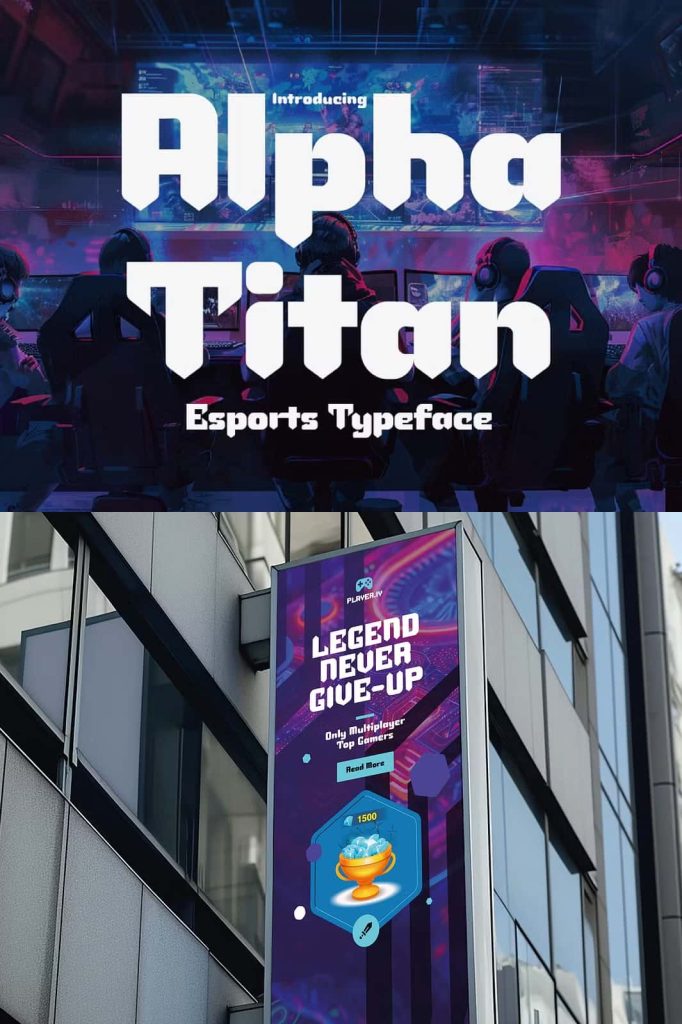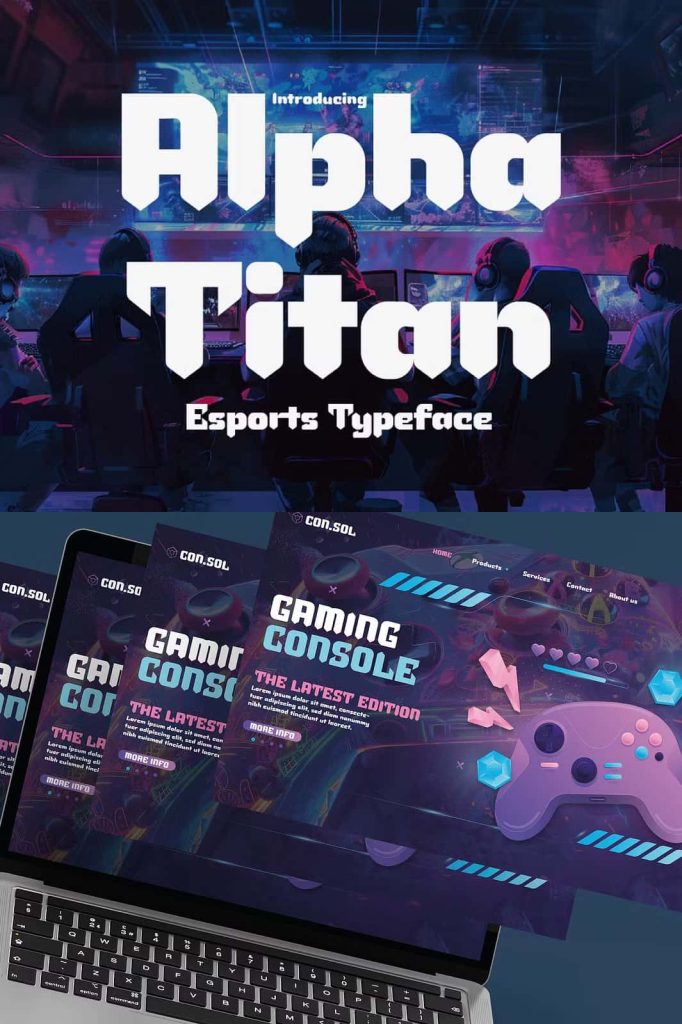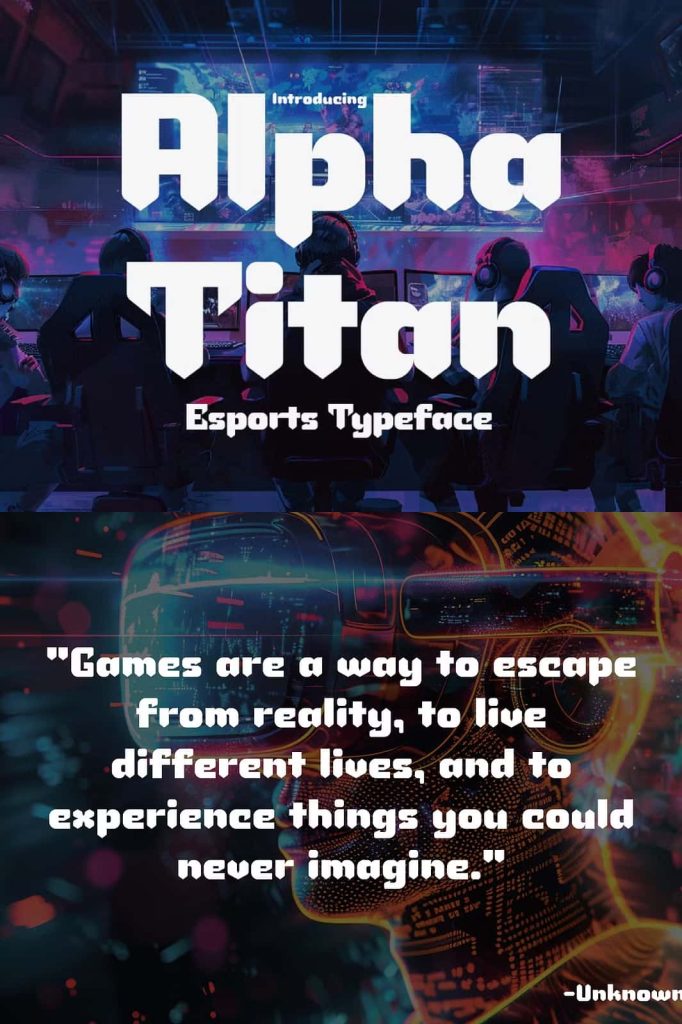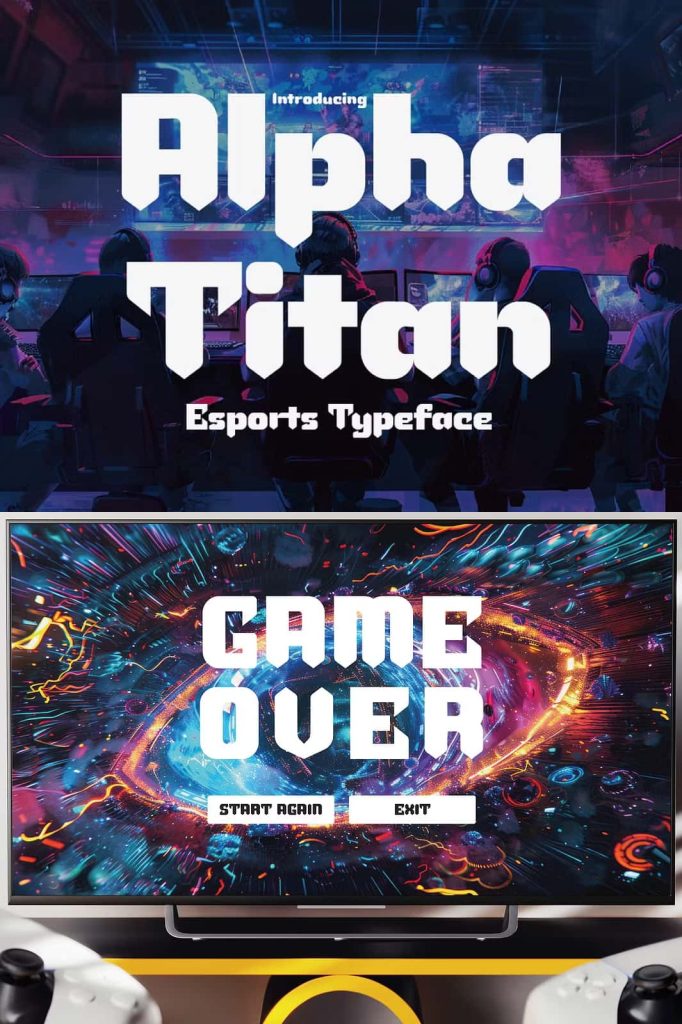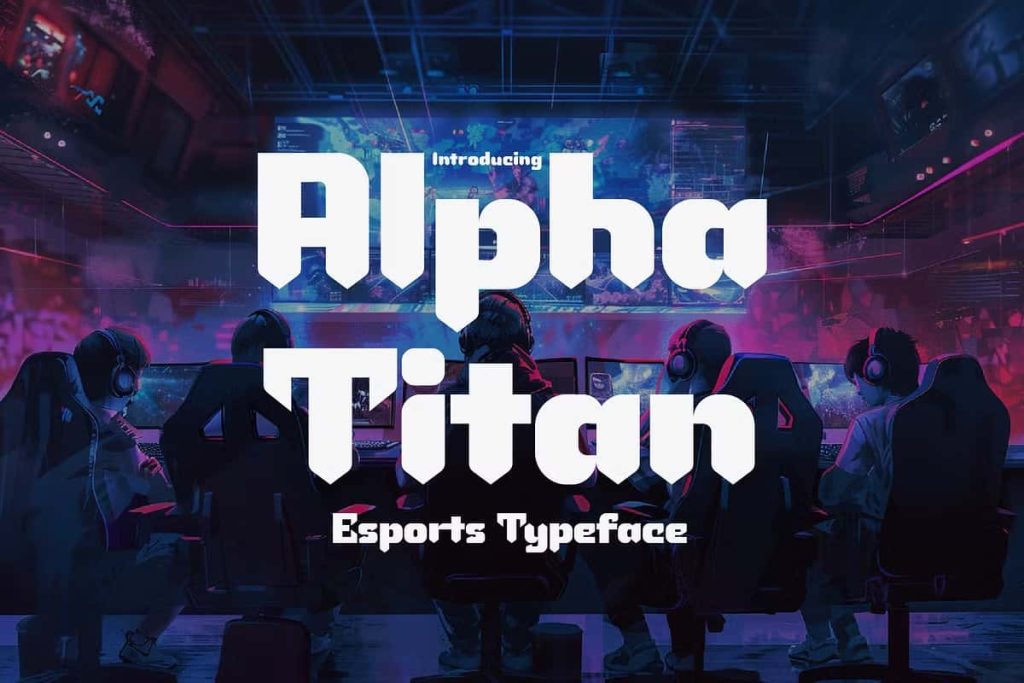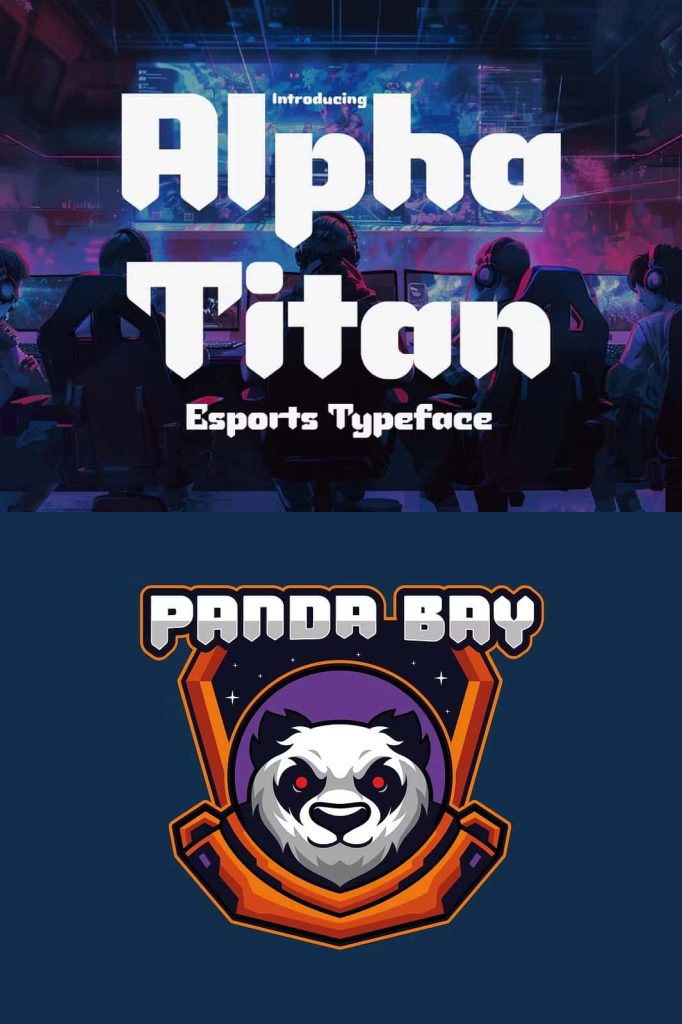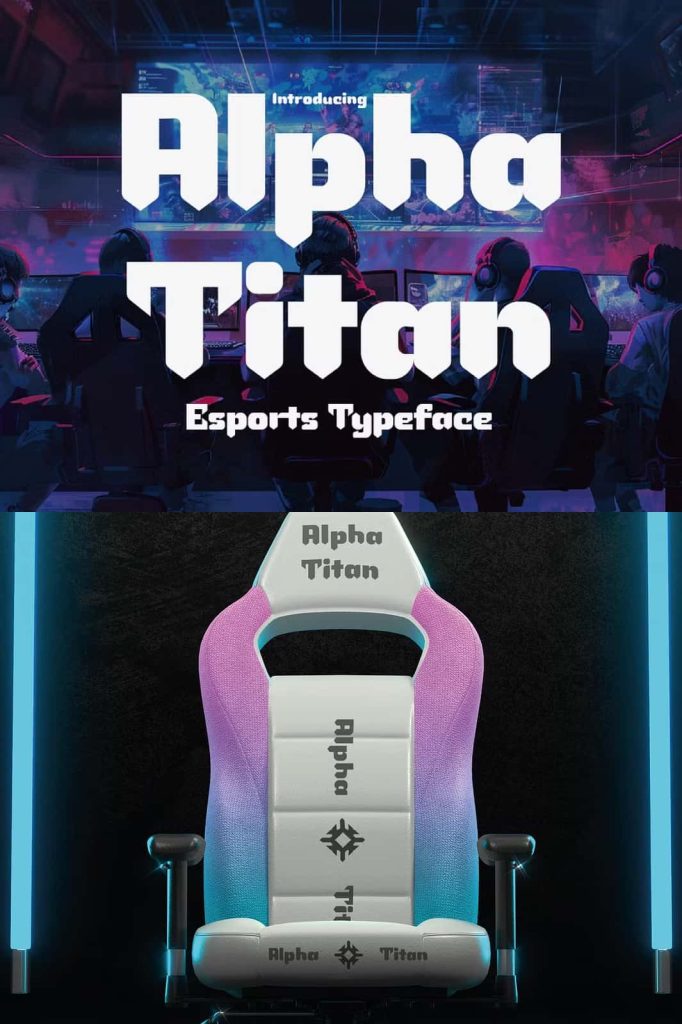
Introducing Alpha Titan, a bold and dynamic typeface inspired by the electrifying world of esports. Alpha Titan is designed to capture the intensity, energy, and excitement that defines competitive gaming.